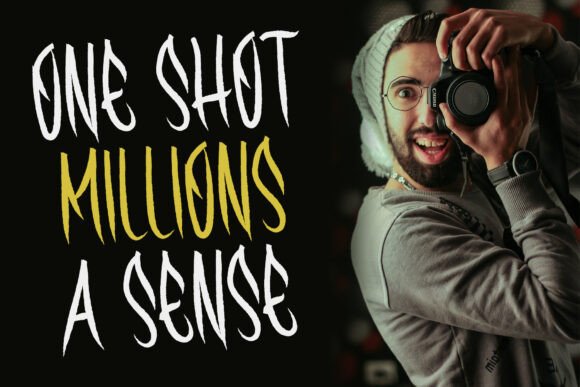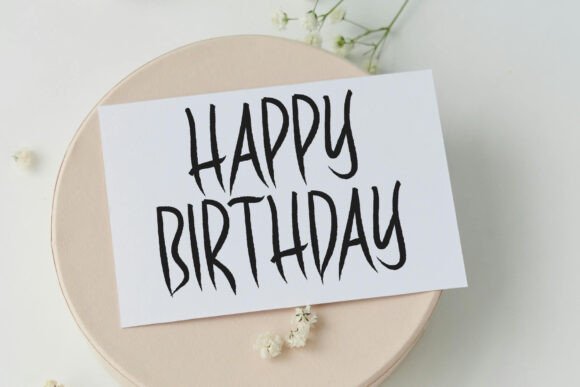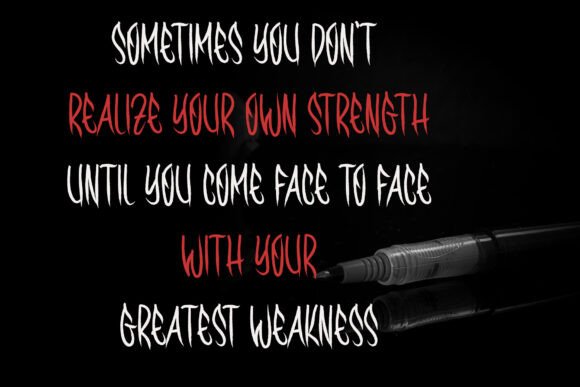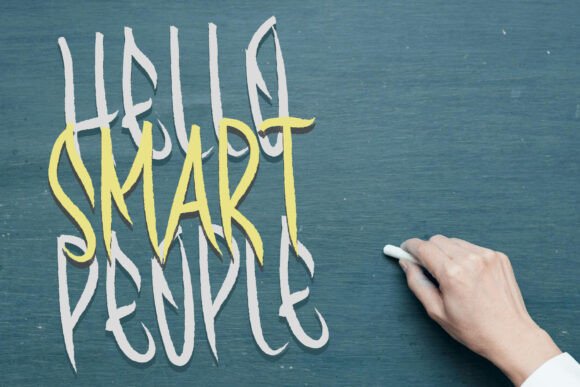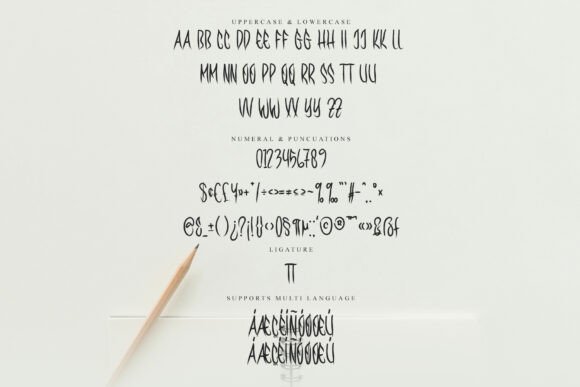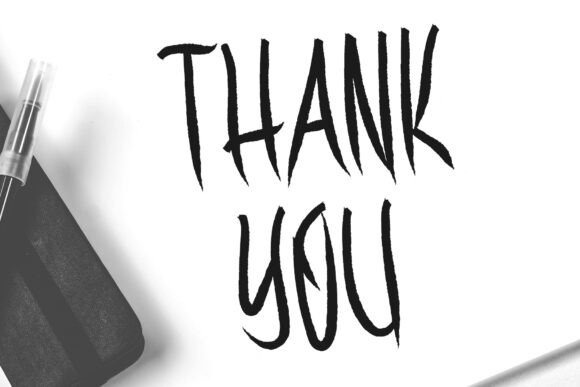
Introduction to Mystic Display Font
With its bold, fluid strokes and dynamic script style, the Mystic Display Font is a game-changer for designers. Whether you’re working on a high-quality logo, a striking headline, or a stylish branding element, this font is sure to deliver with confidence and flair. Its free download and transparent background make it an ideal design resource for any creative project.
Key Features of Mystic Display Font
- High-quality, unique design perfect for creative projects, including graphic design, digital art, and typography.
- Includes a range of characters, including uppercase and lowercase letters, numbers, and special characters, making it a versatile design resource.
- Designed to be highly legible, even at large sizes, making it ideal for use in signage, posters, and other display typography.
Honest Review: Mystic Display Font
What works well: ✨ This font is perfect for any project that requires a touch of mysticism and elegance. Its unique, hand-drawn style makes it stand out from more common fonts. I’ve used it in a few recent projects, and the results have been fantastic.
- Unique and elegant design
- Perfect for creative projects that require a touch of mysticism
What doesn’t work well: ⚠️ While this font is great for most projects, I’ve found that it can be a bit challenging to read at smaller font sizes. Additionally, the font doesn’t come with a lot of character variations, which can limit its versatility.